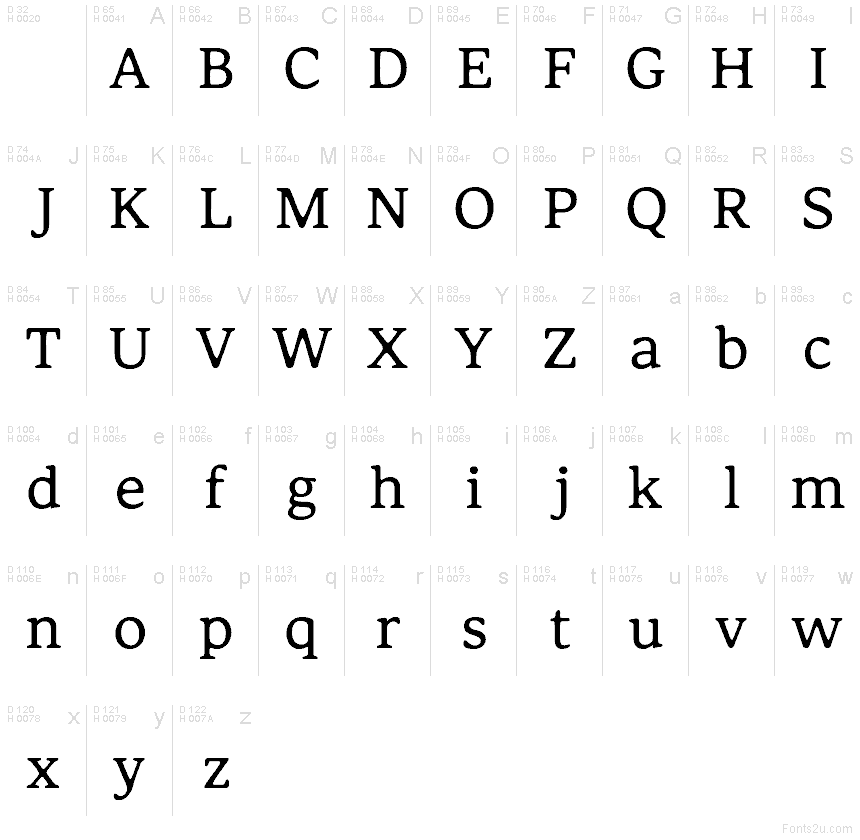
MatinaRoundedDrawn-Regular Demo
Matina Rounded Drawn by Craft Supply Co. is a free serif font with sophisticated and elegant shapes. It’s classic, balanced, and extremely versatile in its application; a timeless toolkit to craft head-turning typography. Matina has formal design elements with a warming touch of alive curves.